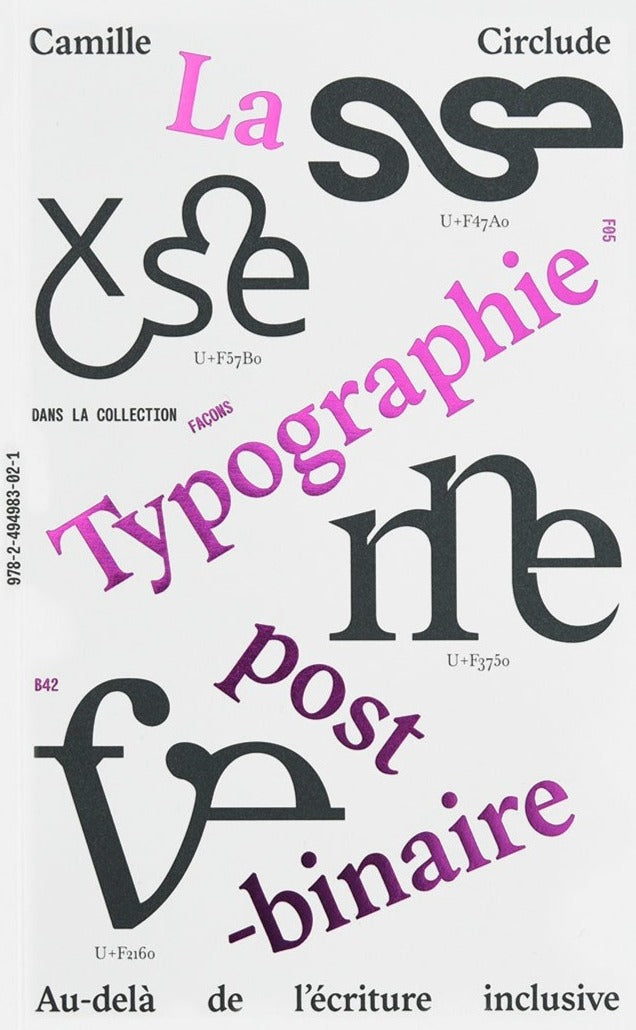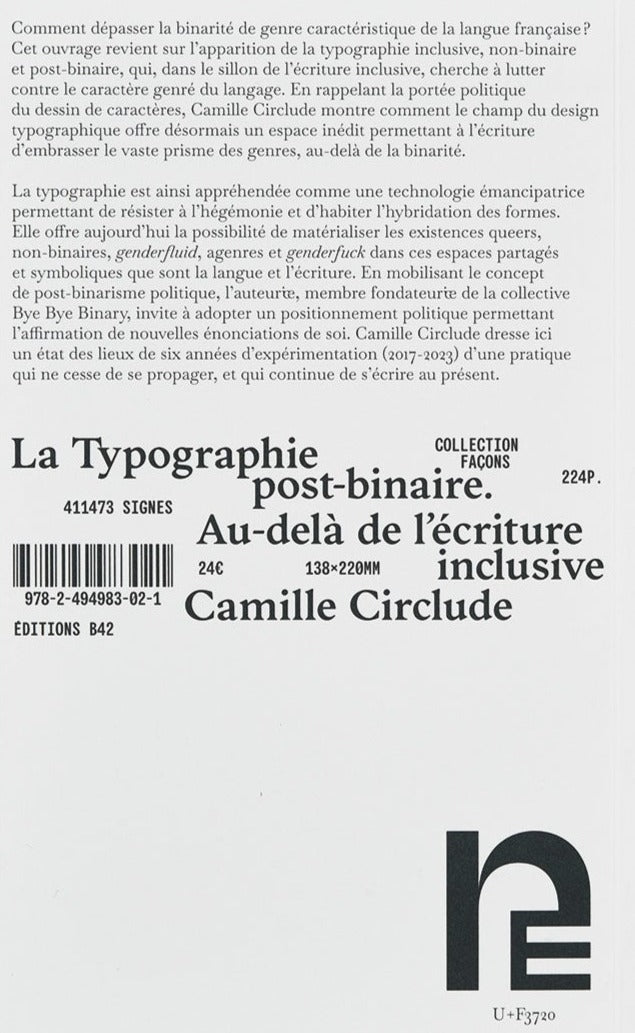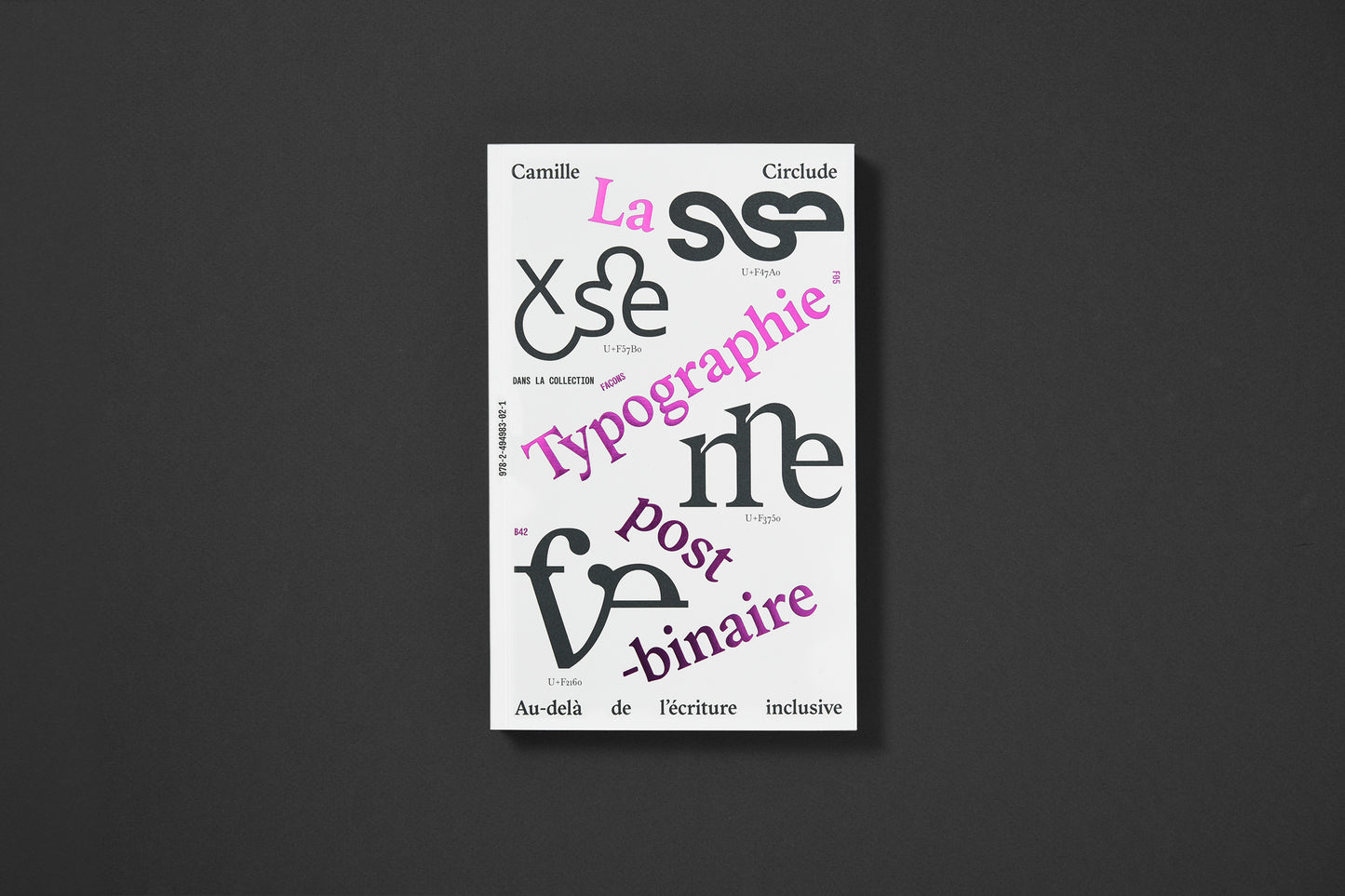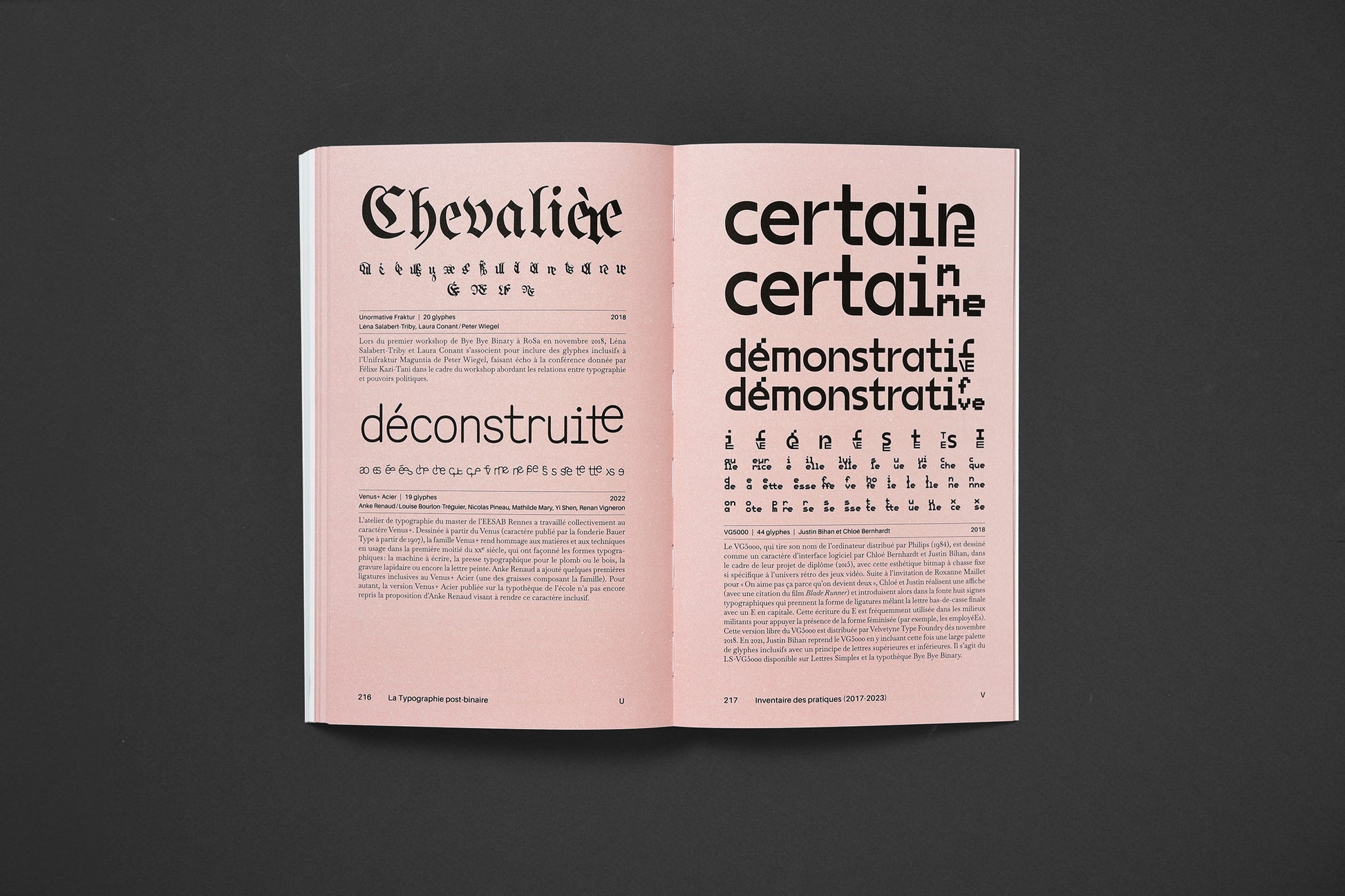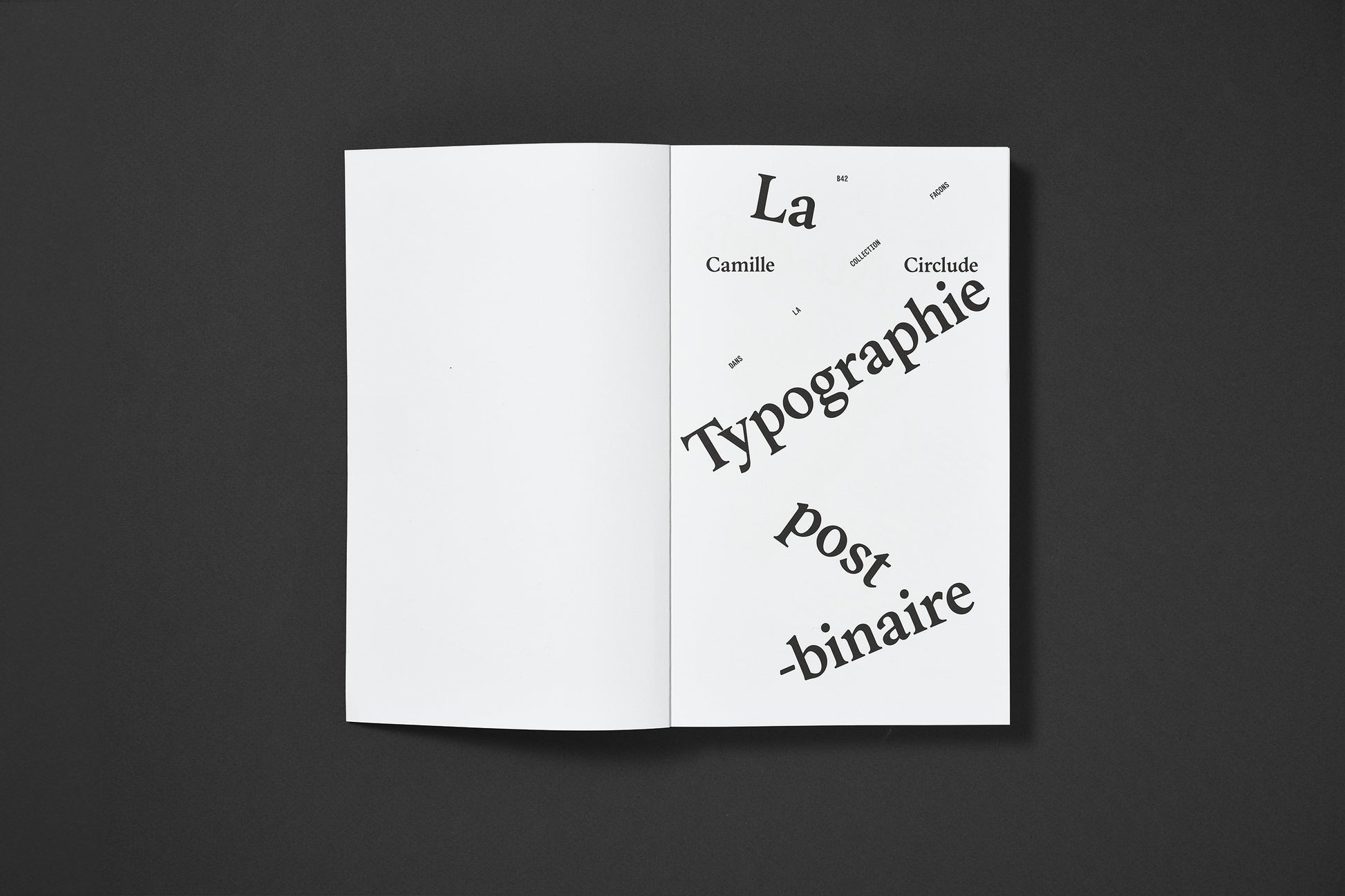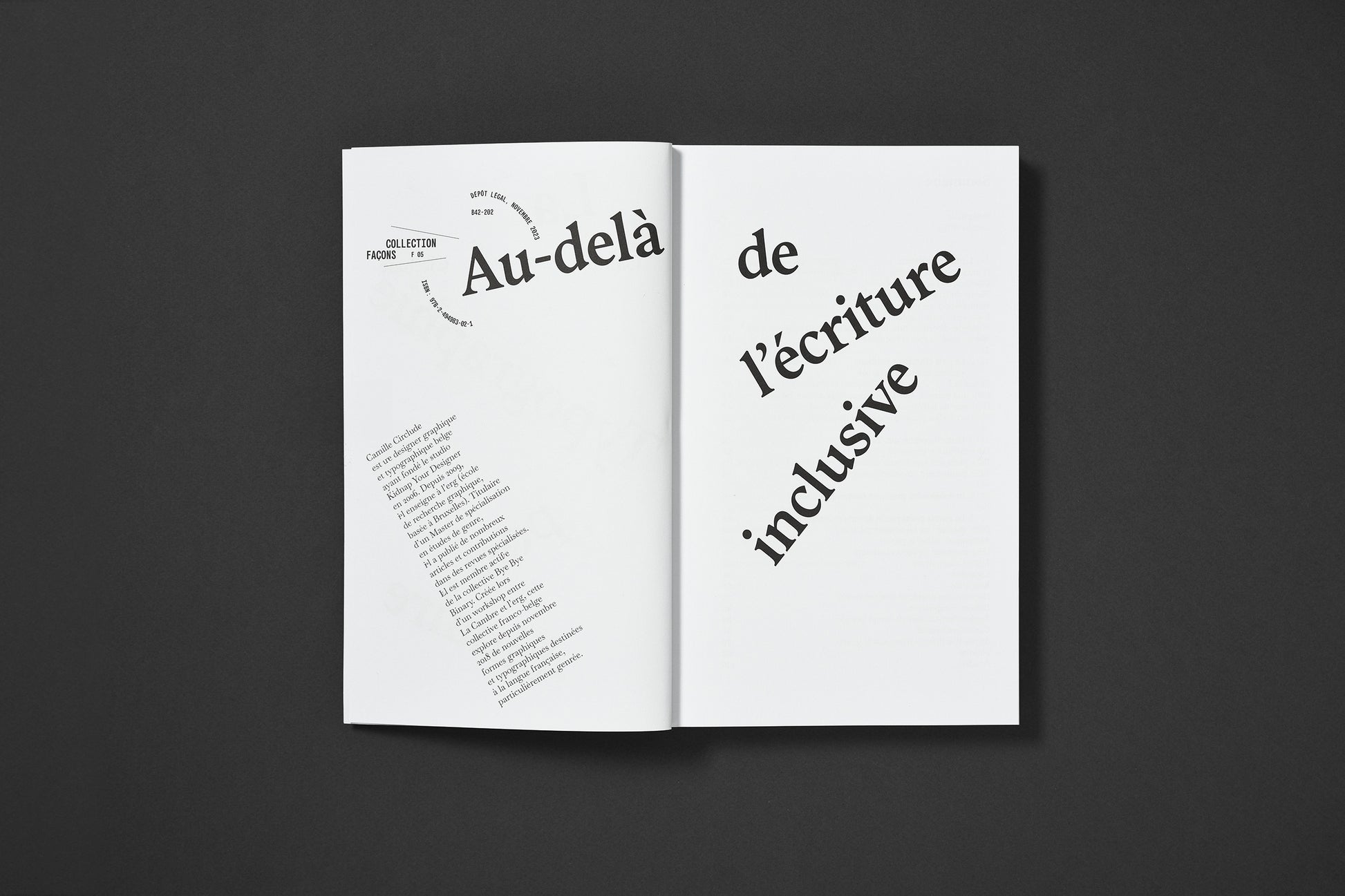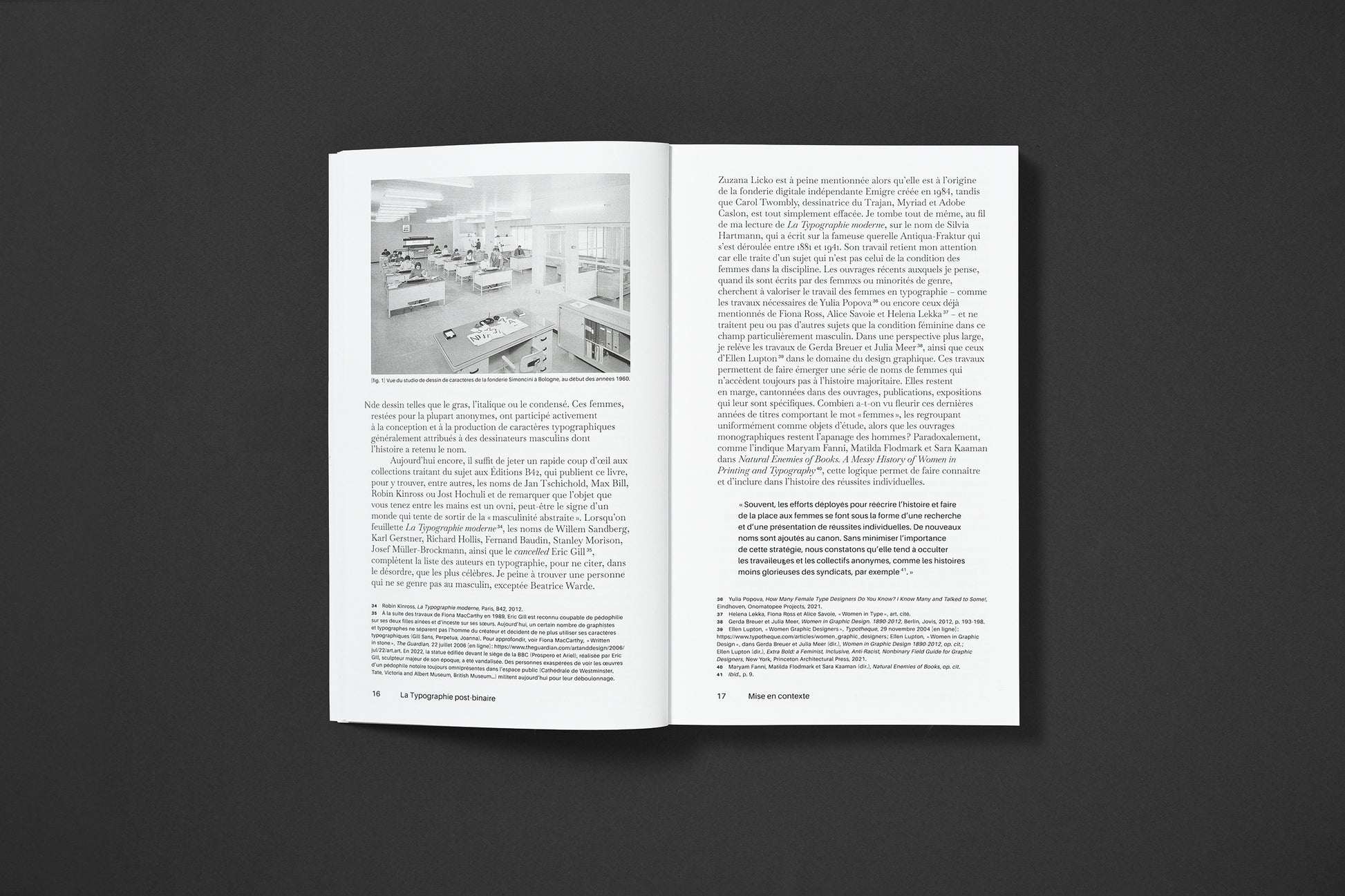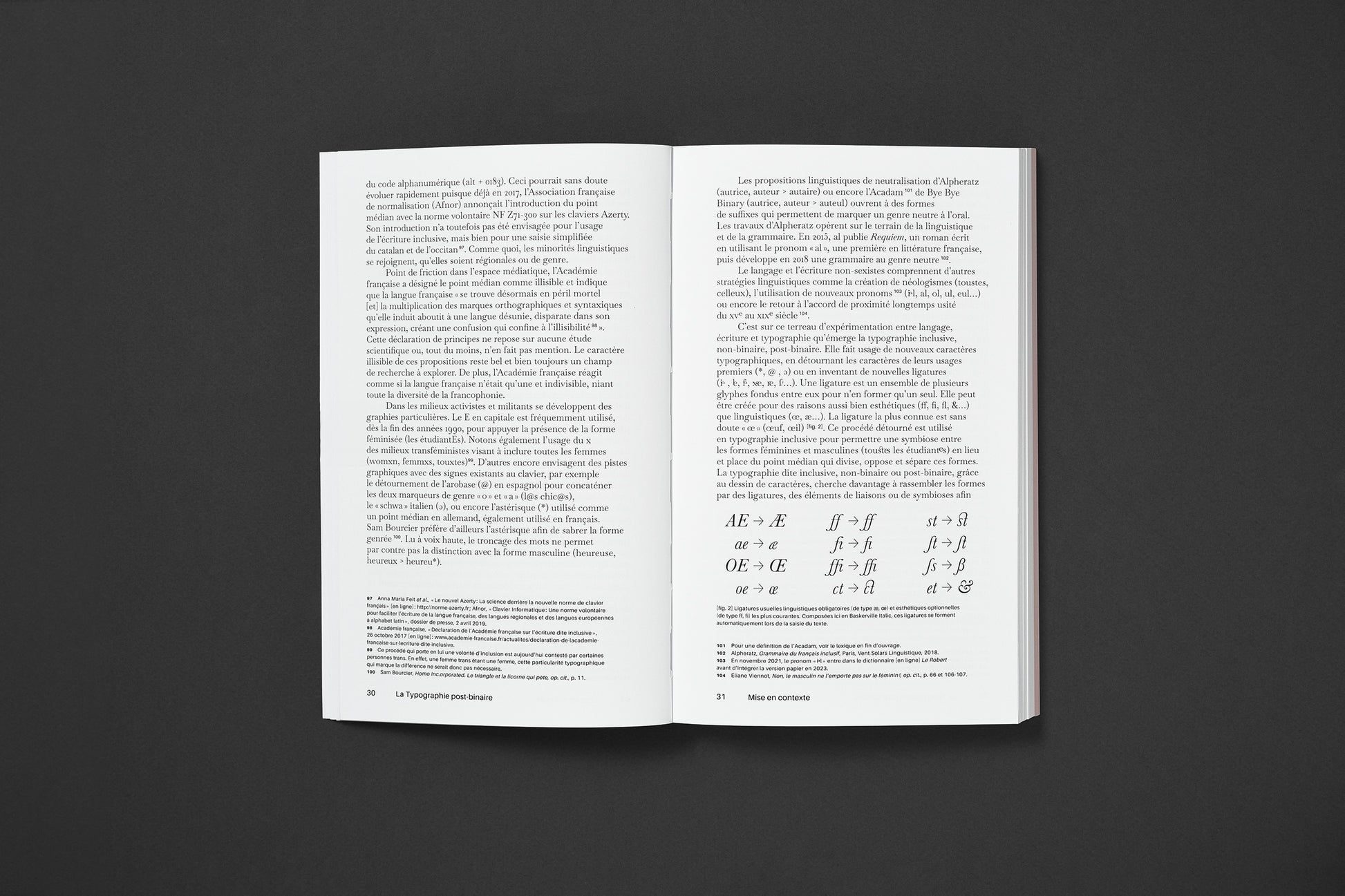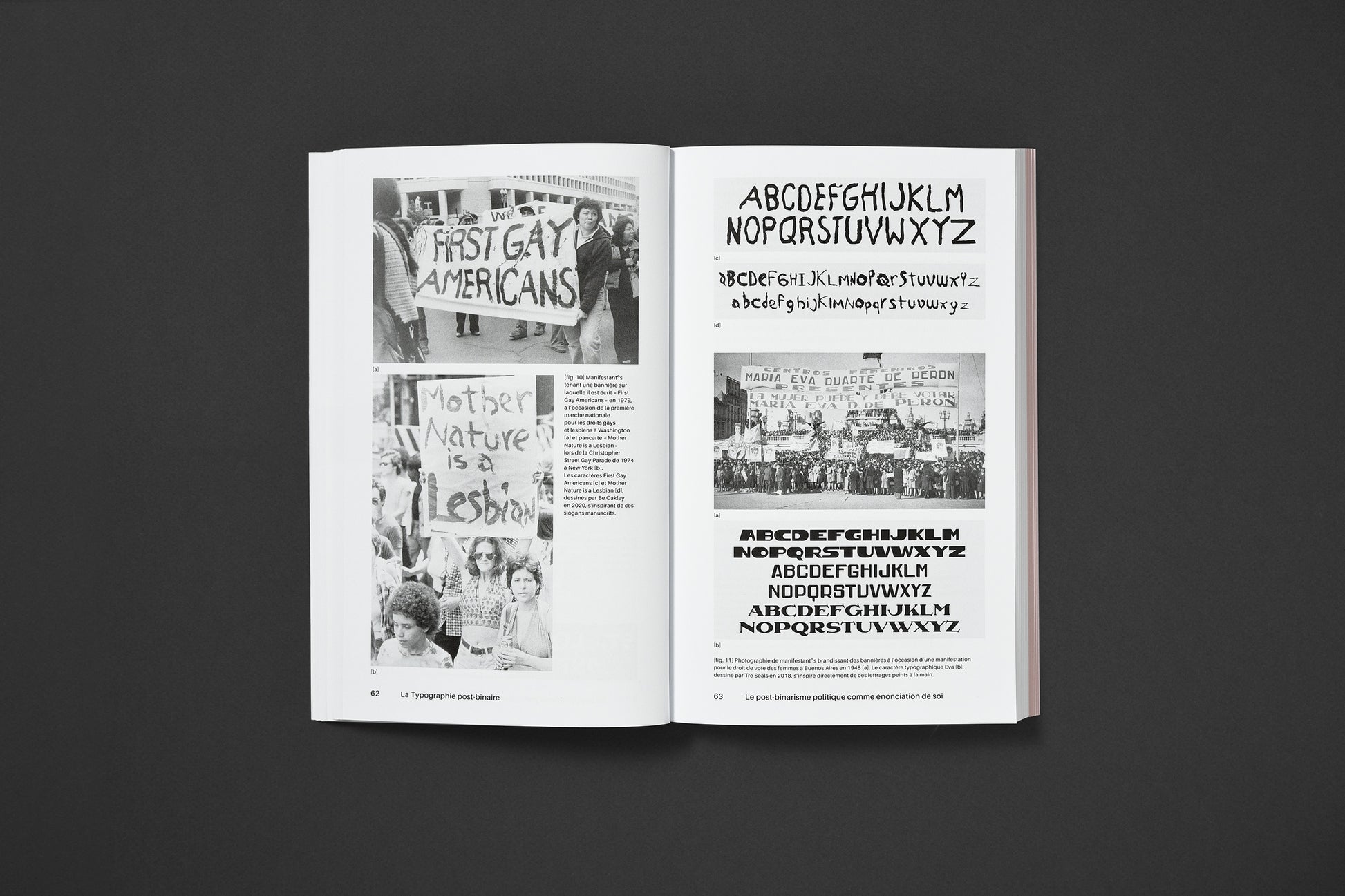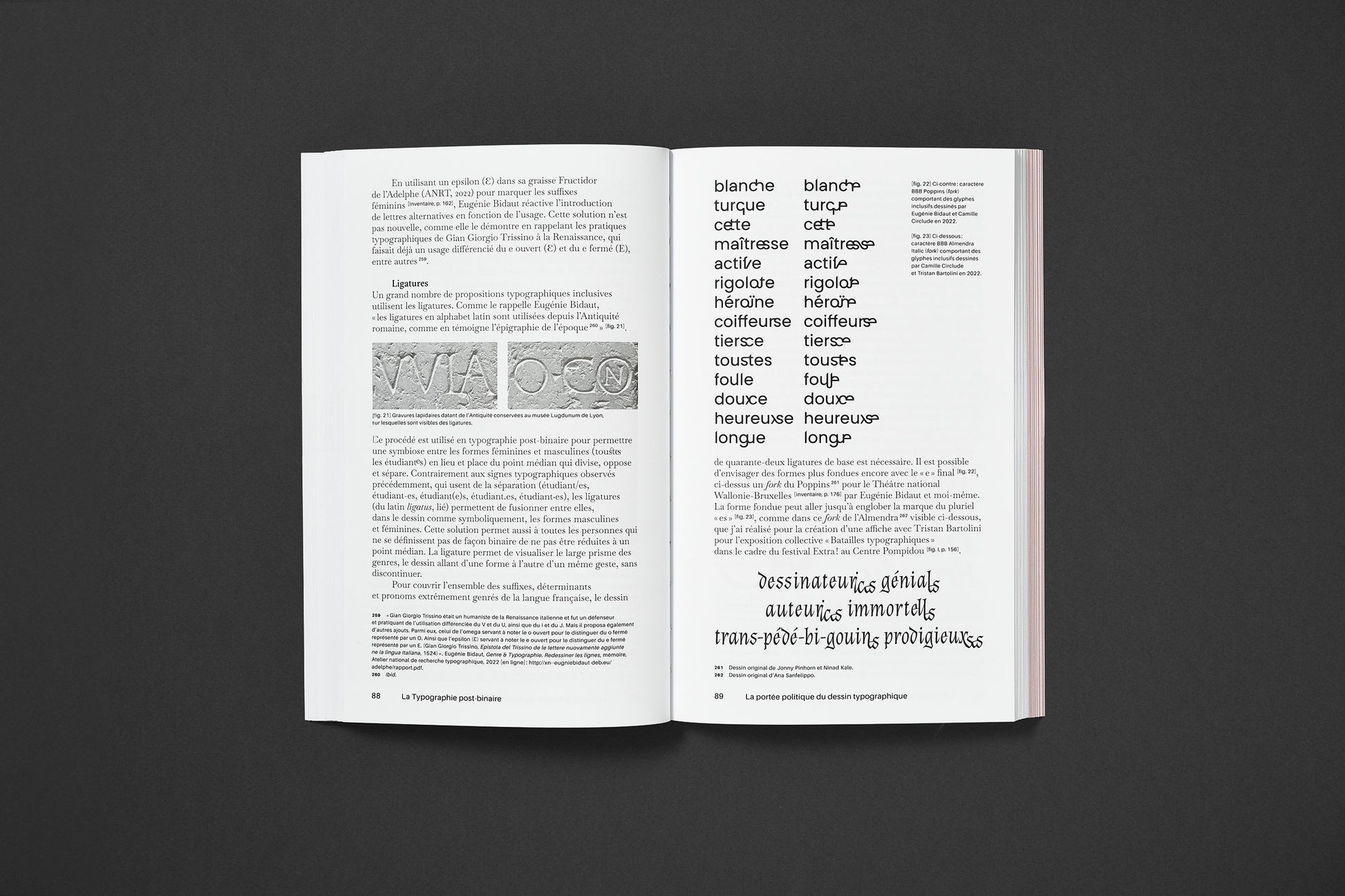
Camille Circlude - La Typographie Post-Binaire
How can we move beyond the gender binarity characteristic of the French language? This book looks back at the emergence of inclusive and non-binary writing, and outlines the beginnings of a post-binary approach to typography. Recalling the political significance of type design, Camille Circlude shows how the field of typographic design now offers an unprecedented space for writing to embrace the vast prism of gender, beyond binarity.
Typography is seen as an emancipating technology that resists hegemony and embraces the hybridization of forms. Today, it offers the possibility of materializing queer, non-binary, genderfluid, agender and genderfuck existences in the shared, symbolic spaces of language and writing. By mobilizing the concept of political post-binarism, the author - a founding member of the Bye Bye Binary collective - invites us to adopt a political positioning that enables the affirmation of new enunciations of the self. Here, Camille Circlude takes stock of six years of experimentation (2017-2023) with a practice that continues to spread, and continues to be written in the present.